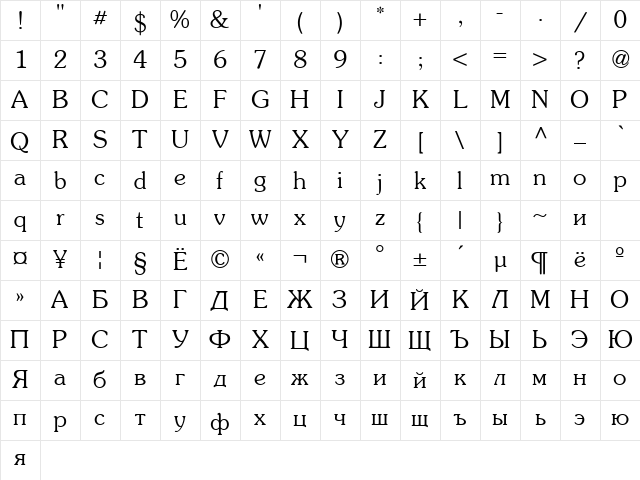
Complete AGSouCyrillic Normal A glyph index. Displaying only characters natively supported by AGSouCyrillic Normal A font.
AGSouCyrillic is a composed and adaptable typeface that performs quietly and consistently across a wide range of design contexts.